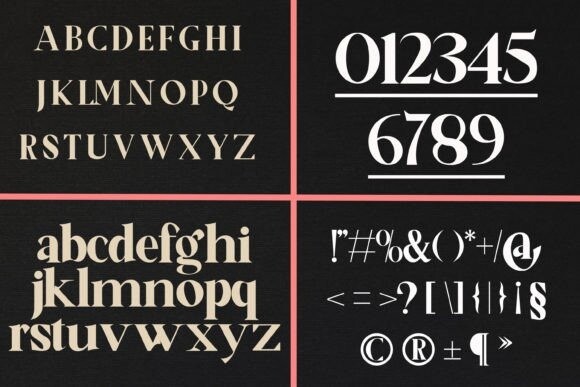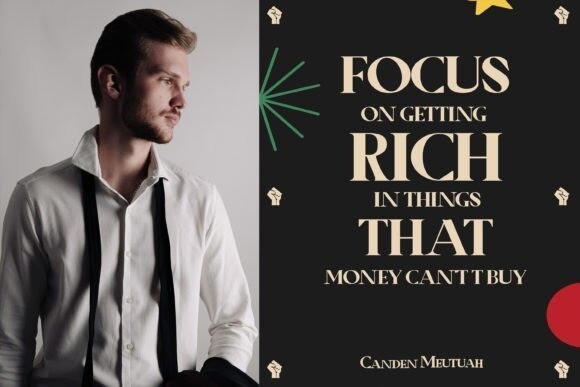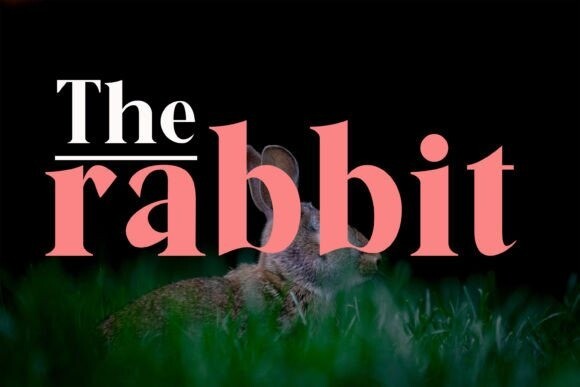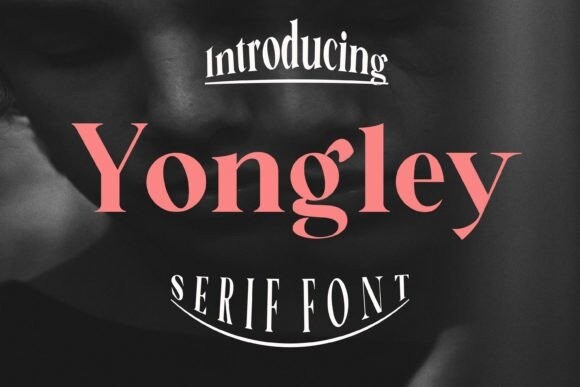
Yongley Font
Yongley Font is a typeface designed by Canden Meutuah with a characteristic of smooth yet firm lines. With its graceful curves, balanced proportions, and delicate serifs, this typeface adds a touch of class to any design. Ideal for luxury brands, editorial layouts, and refined typography that demands attention. Embrace the allure of timeless beauty.